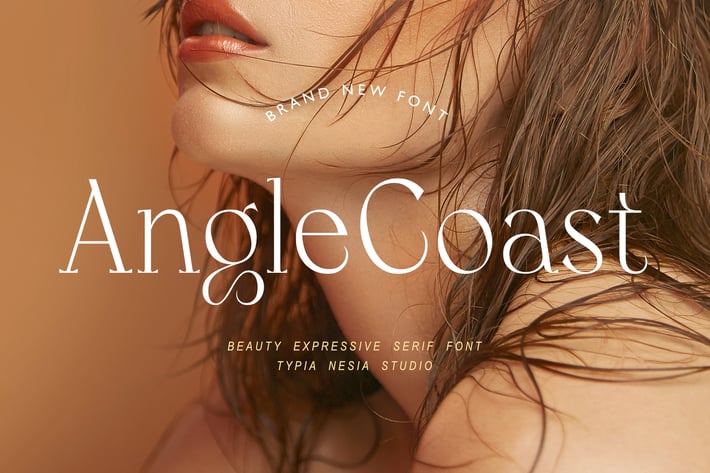
Angle Coast - Elegant Beauty Expressive Serif Font
Angle Coast - Elegant Beauty Expressive Serif Font - Fashion Classy Fancy Font
Angle Coast comes with some ligatures, so you can combine it to make a perfect typography design. Angle Coast Elegant Serif font is perfect for your up coming projects. Such as luxury logo and branding, classy editorial design, woman magazine, cosmetic brand, fashion promotional, art gallery branding, museum, historical of architectural, boutique branding, stationery design, blog design, modern advertising design, card invitation, art quote, home decor, book/cover title, special events and any more.